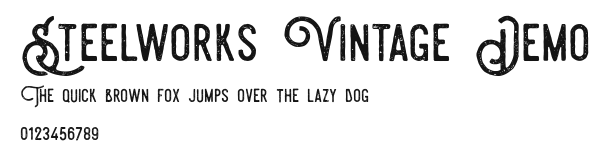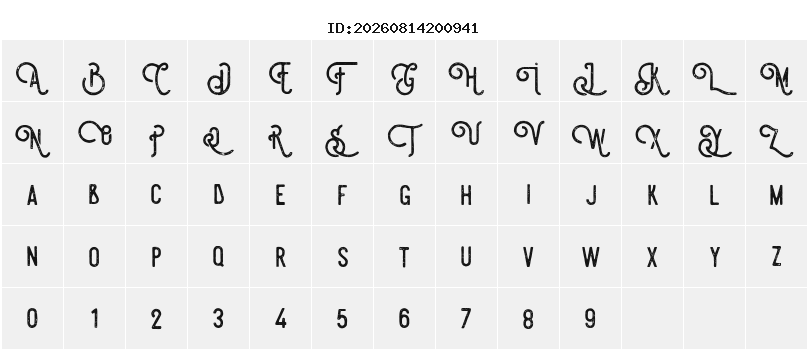
Steelworks Vintage Demo Preview
• Font Name: Steelworks Vintage Demo
• Font Style: Vintage
• Designer: Burntilldead
• Manufacturer: Eric Kurniawan
About Steelworks Vintage Demo.ttf
Steelworks Vintage Demo.ttf is a modern, elegant sans-serif font designed for ultimate readability and visual harmony. Perfect for branding, headlines, web design, and print materials.